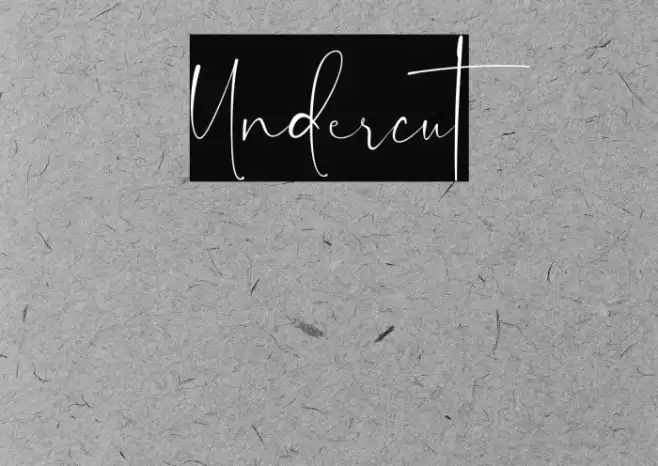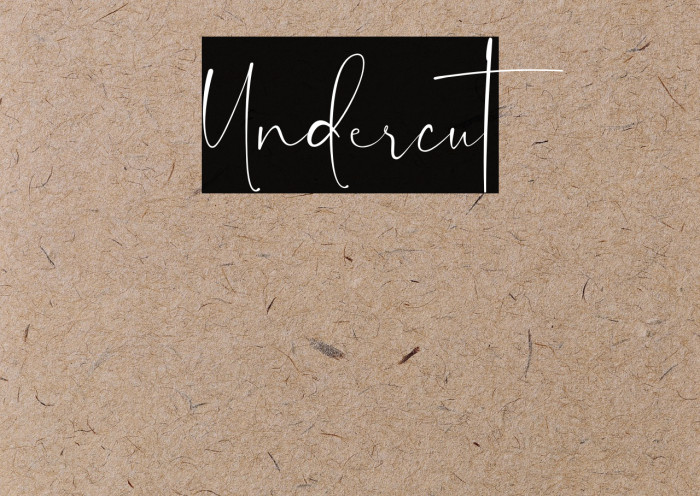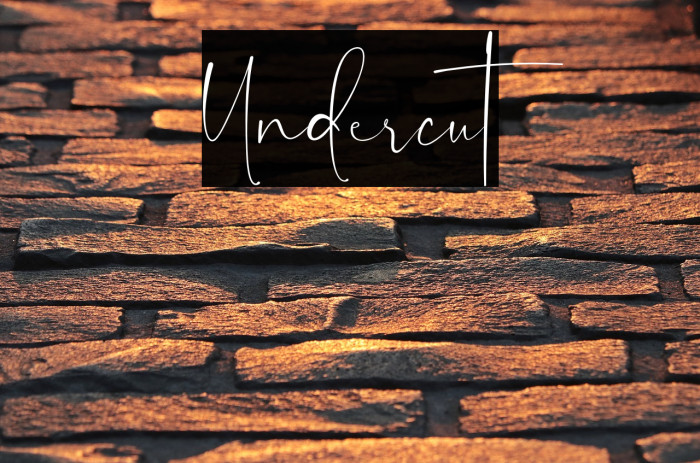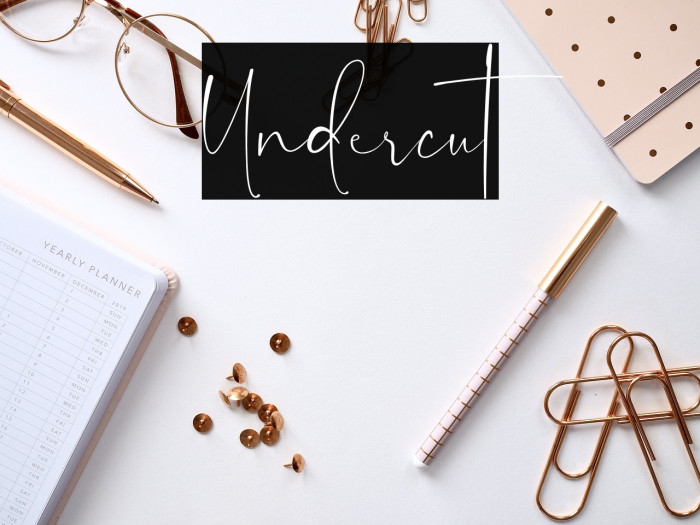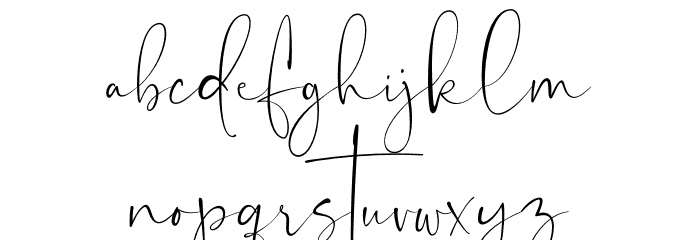
Undercut Font
Undercut Description
This font features a modern, handwritten style with a playful and artistic flair. The uppercase letters are tall and slender, with a mix of straight and curved lines that give a dynamic and fluid appearance. The lowercase letters maintain a consistent style, with some characters extending below the baseline, adding to the casual and freeform look. The numerals are uniquely styled, with varying heights and strokes that complement the overall aesthetic. Special characters are included, maintaining the same whimsical and creative design. This font is perfect for projects that require a personal touch or an informal, yet stylish, presentation.
A modern, handwritten font with a playful and artistic style from Uncategorized fonts.
- Proposed Projects: Ideal for greeting cards, invitations, personal branding, and creative projects.
- Use Case: Logos, Invitations, Personal Branding